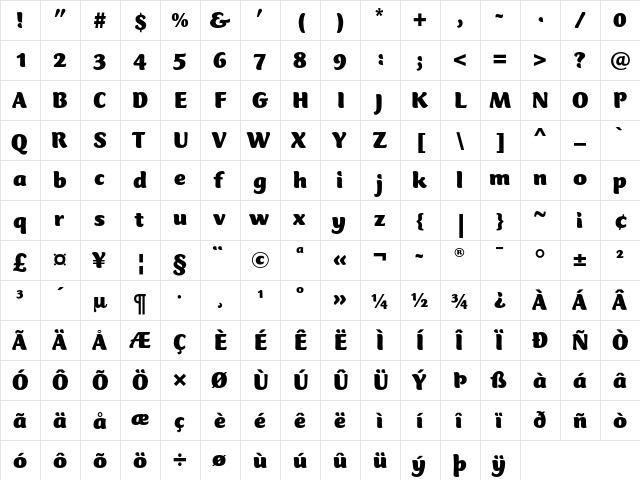
CT Mercurius Black
Design Context for CT Mercurius Typeface
CT Mercurius offers clean, dependable letterforms without strong stylistic allegiance, making it a practical choice for designers who need flexibility.